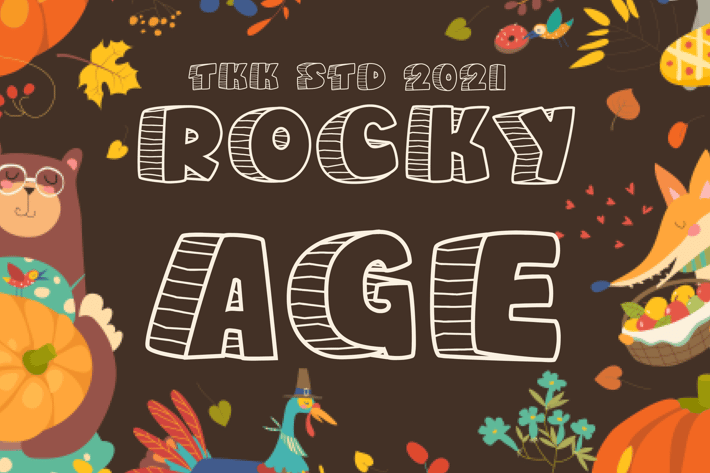
Rocky Age - Kids font
Rocky Age – A Bold Outline Font with Playful Quirks and Retro Warmth
Rocky Age is a chunky, outlined kids’ display font with blocky proportions, softened corners, and a friendly, hand-drawn charm. It balances a bold presence with a retro flair, ideal for storybook titles, children’s posters, and autumn-themed printables. With a cheerful and adventurous energy, Rocky Age brings a comic-style confidence to your typography, perfect for sparking imagination in both kids and adults.
The Perfect Font for Stories, Celebrations & Childhood Moments
Designed with creative storytelling in mind, Rocky Age adds character and fun to any project. From bedtime stories and educational books to holiday greetings, DIY cards, or kids' YouTube thumbnails, its approachable vibe makes it feel like it was made for your young audience. Want your design to feel cozy, nostalgic, and kid-approved? Rocky Age wraps every word in a soft, familiar feeling that’s both attention-grabbing and heartwarming.
Why Designers Choose Rocky Age
✅ Outline Letterforms – Create bold, fillable headers that stand out while staying fun and light
✅ Hand-Crafted Feel – Gives your project a personal, childlike storytelling touch
✅ Great for Print or Digital – From YouTube thumbnails to coloring books
✅ Pairs Well with Warm Palettes – Ideal for autumn, retro, or family-focused themes
Whether you’re a children’s illustrator, a teacher crafting printable worksheets, or a designer building warm, nostalgic branding, Rocky Age gives you the perfect mix of playfulness and structure. Make your next design bold, friendly, and full of character—grab Rocky Age now and bring joy to every letter!